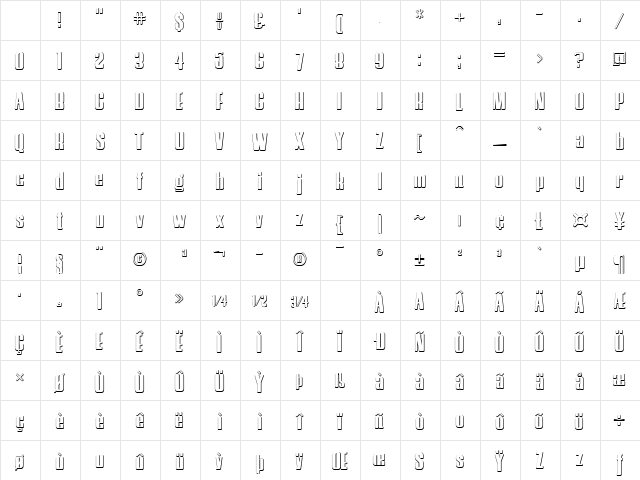
Complete HostilBeveled Regular glyph index. Displaying only characters natively supported by HostilBeveled Regular font.
HostilBeveled is a composed and adaptable typeface that performs quietly and consistently across a wide range of design contexts.
Who designed the HostilBeveled Regular font?
This font was published by Paulo W, Intellecta Design. Check the technical specs section for copyright and designer details.